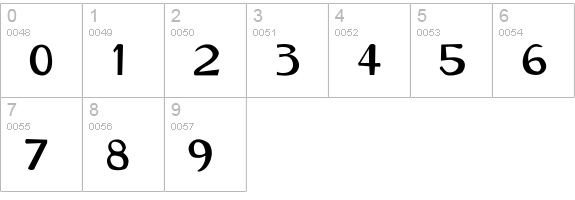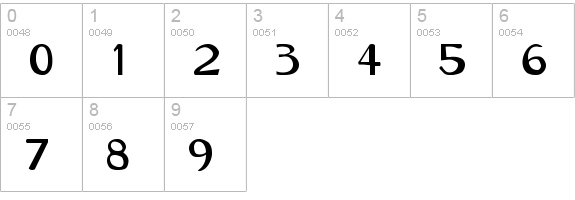
Caraway font is a stunning typeface that combines elegance with readability, making it perfect for a wide range of design projects. With its unique blend of classic and modern elements, Caraway font exudes sophistication and charm. Its sleek lines and graceful curves add a touch of refinement to any text, making it a versatile choice for both print and digital media. The best part? Caraway font is available for free download at FontsMarket.com. This means you can easily access this beautiful typeface and use it in your designs without any cost. Whether you're creating invitations, branding materials, or website designs, Caraway font will elevate your projects and leave a lasting impression on your audience. Don't miss out on the opportunity to enhance your designs with the timeless beauty of Caraway font. Download it for free today and see the difference it can make in your creative endeavors.